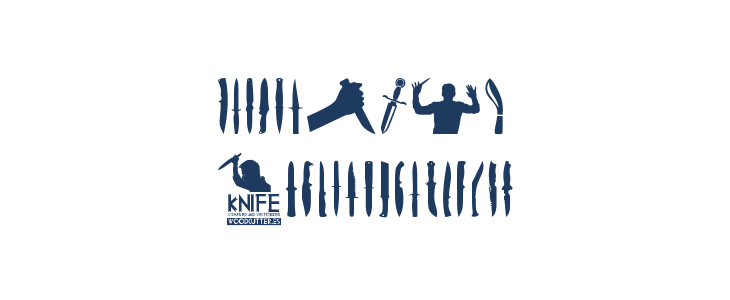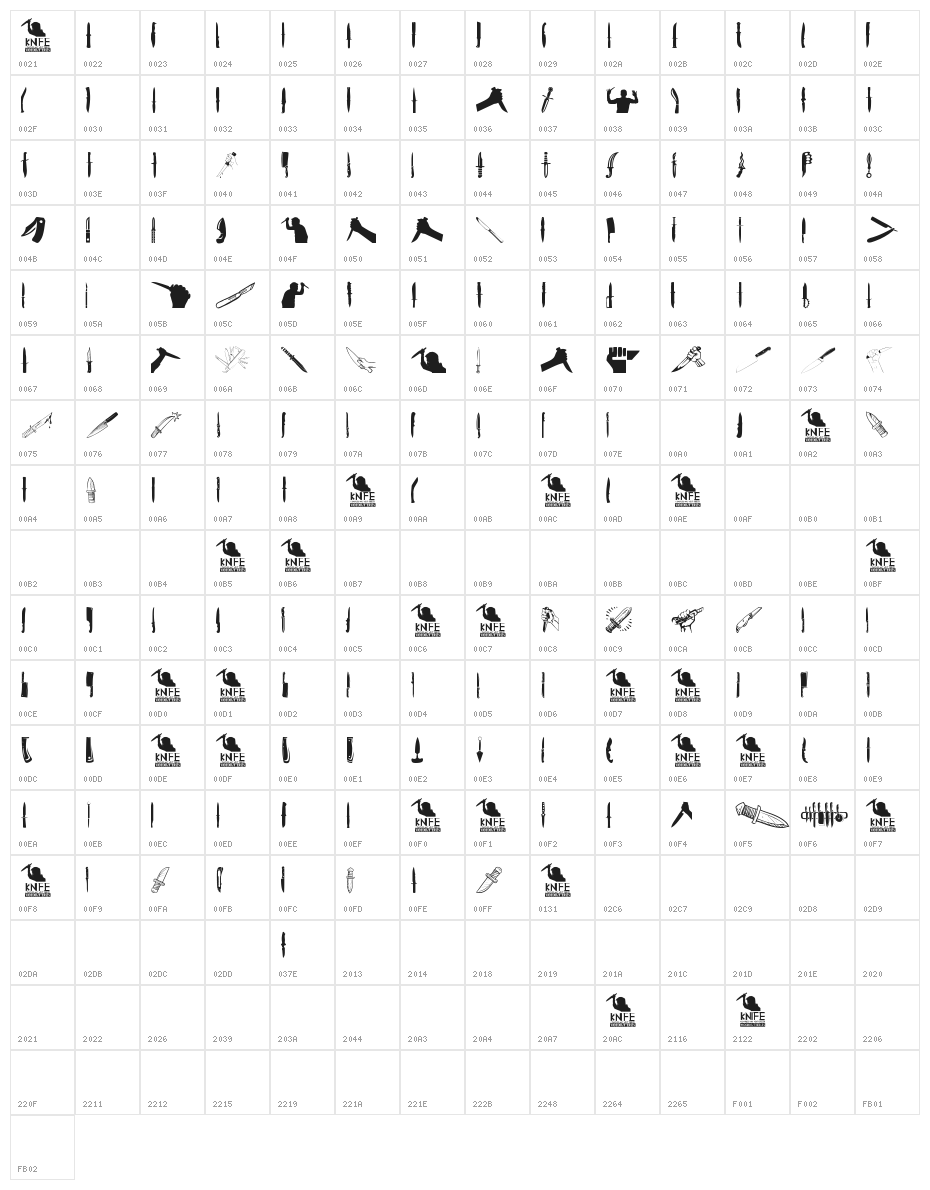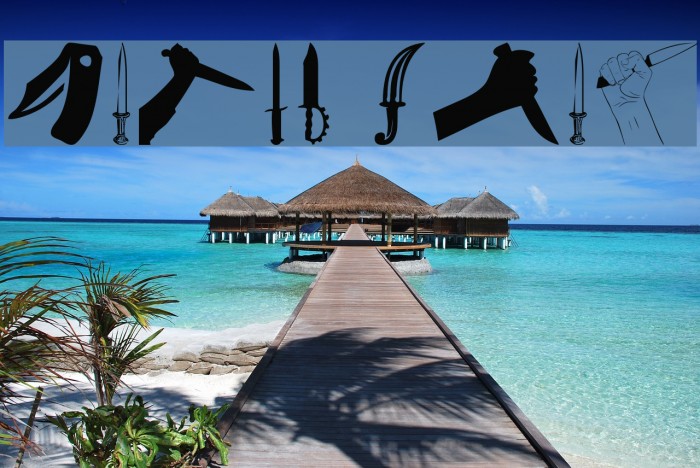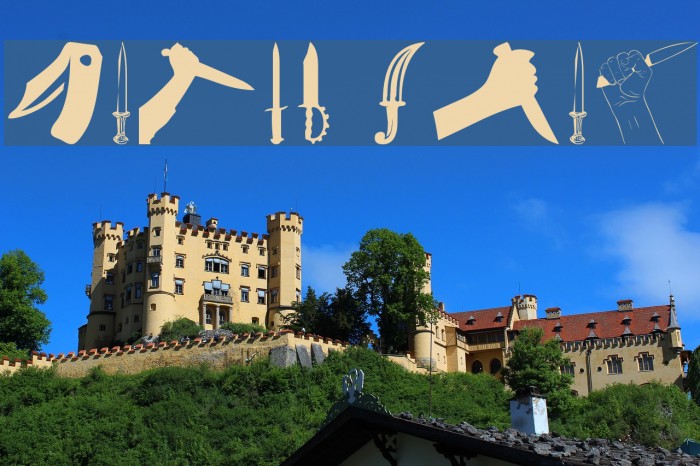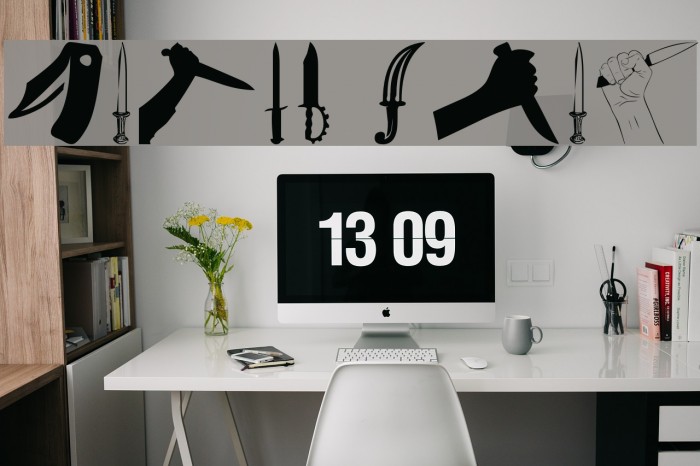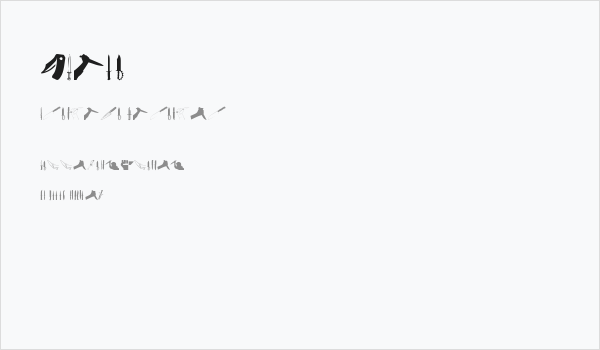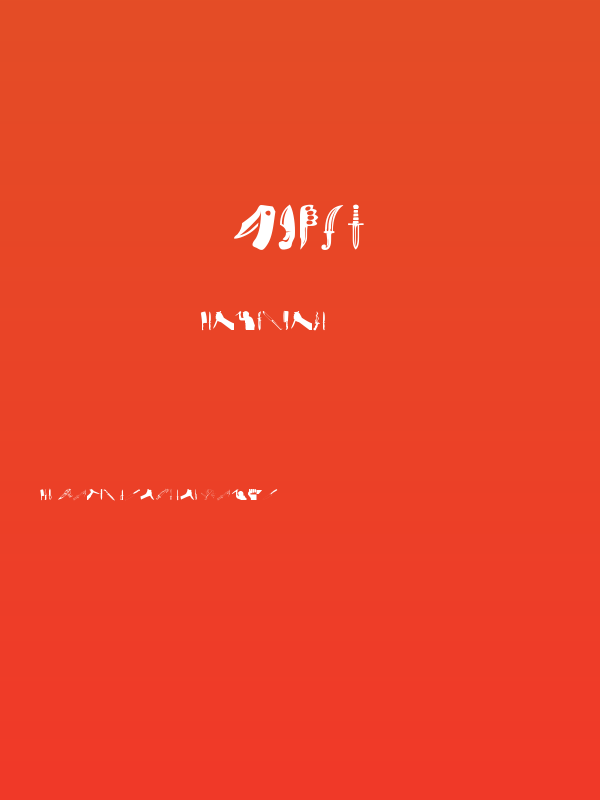
Knife Font
Knife Description
A decorative display font composed entirely of knife and weapon silhouettes, with each character represented by a unique blade or hand holding a knife. The glyphs are bold, highly stylized, and lack traditional letterforms, focusing on strong visual impact rather than readability.
| Overall Style | Decorative, Dramatic, Thematic |
| Use Case | Logos, Headlines, Posters, Themed graphics |
| Proposed Projects | Horror movie posters, Halloween event flyers, themed party invitations, graphic novels, video game titles, or any project requiring a dramatic, edgy look. |